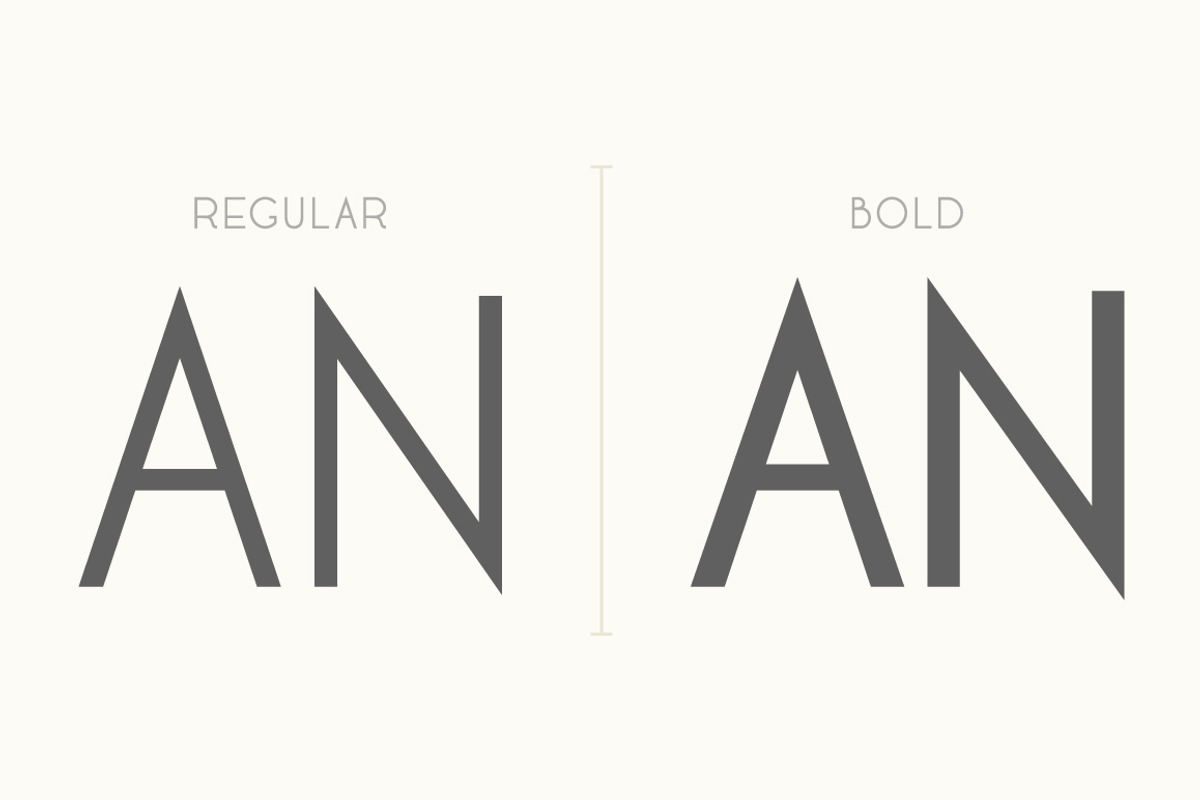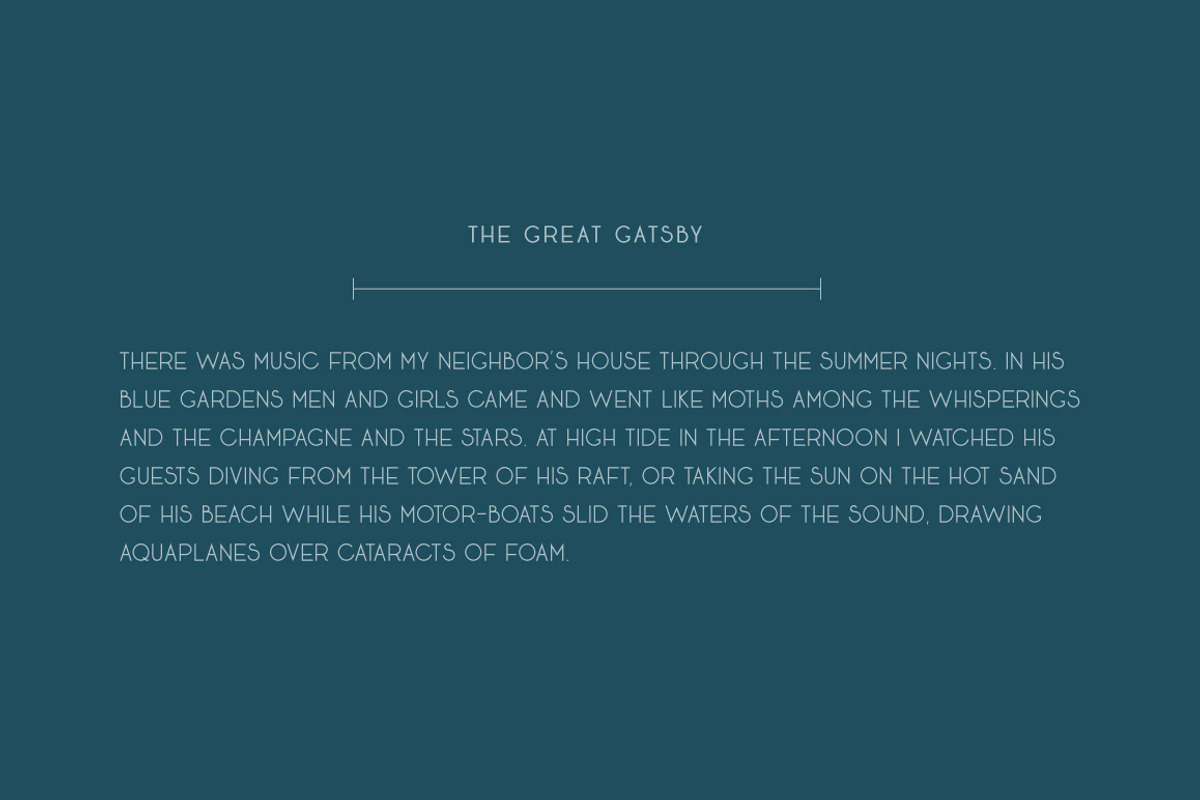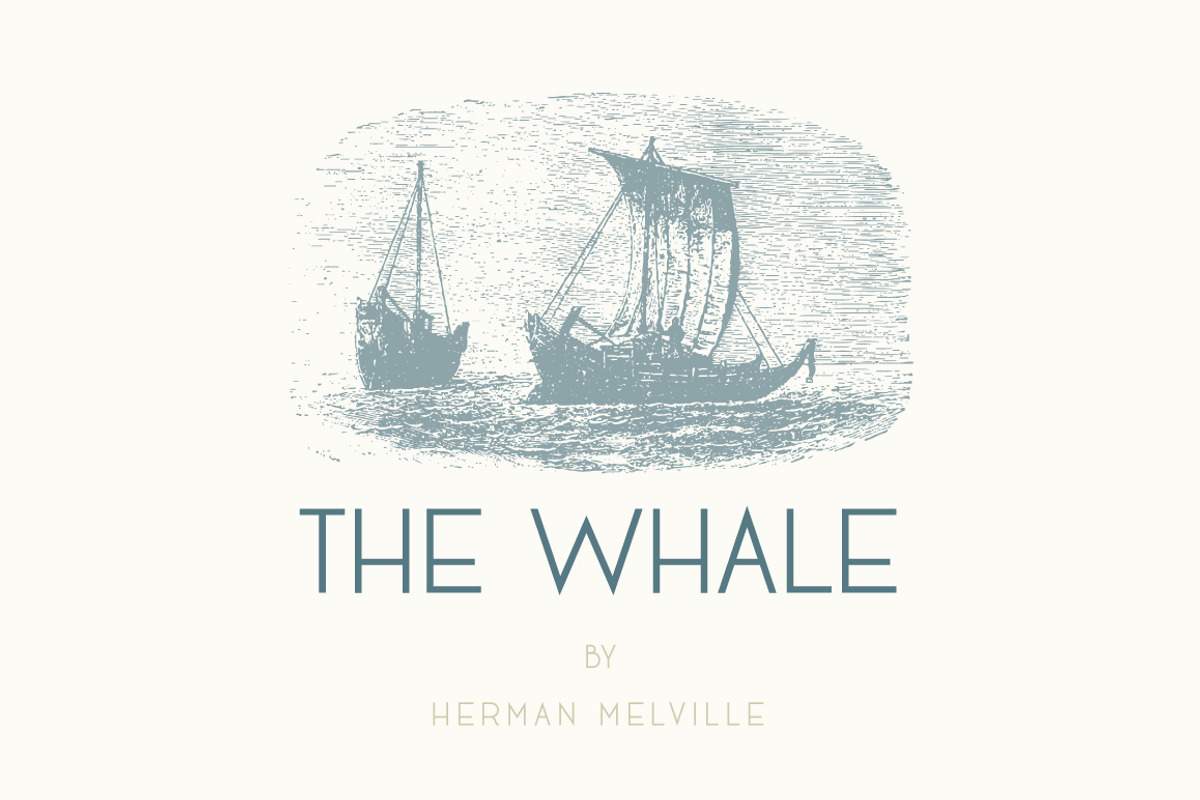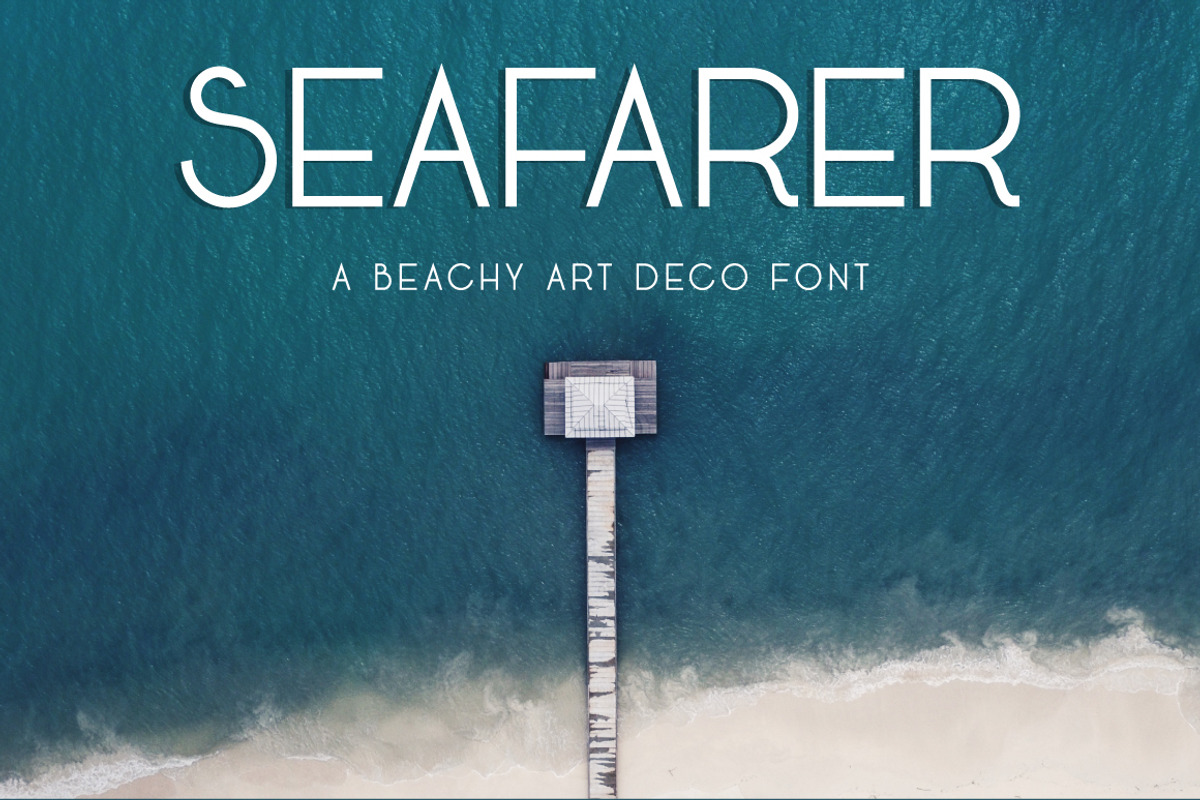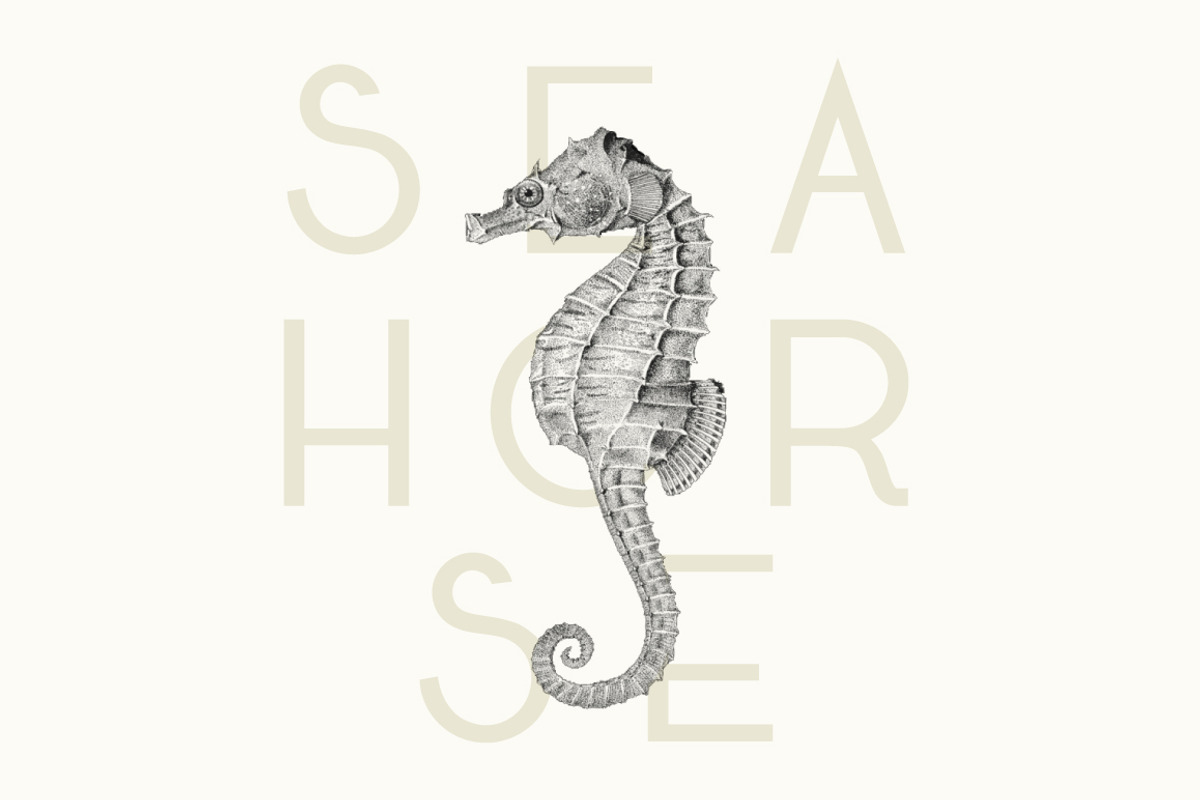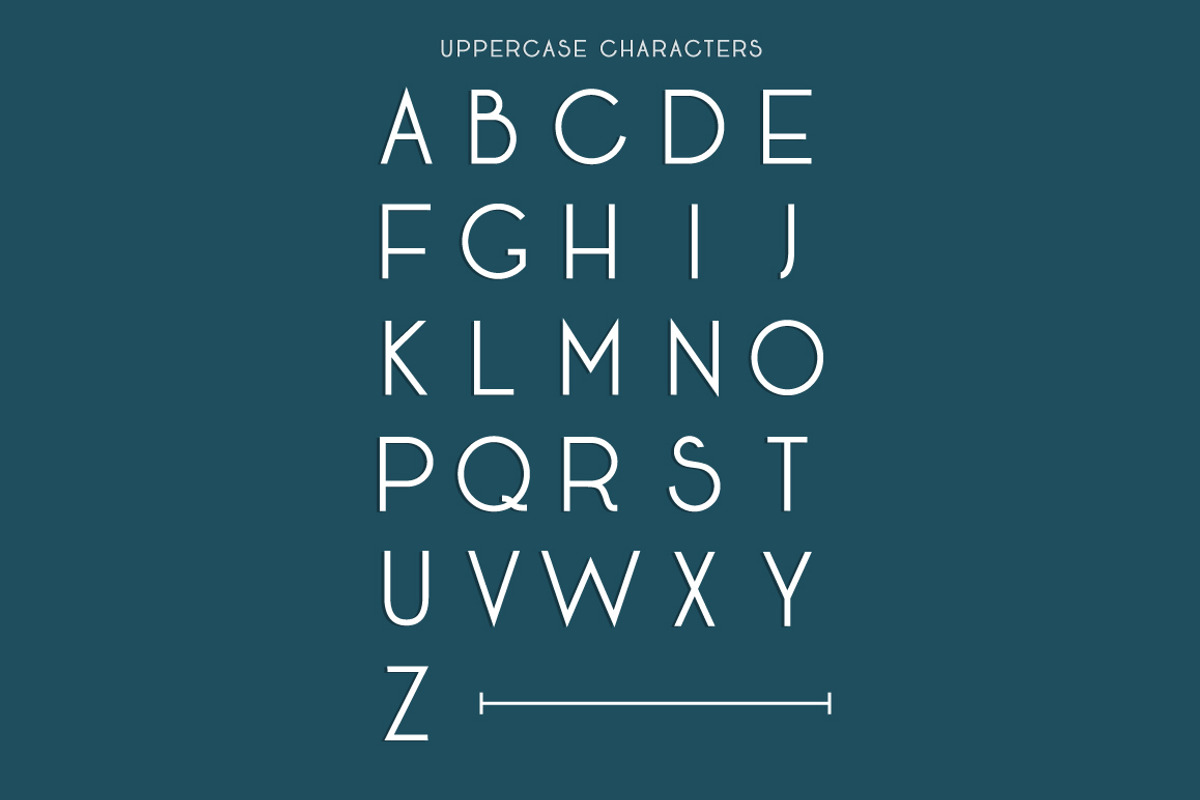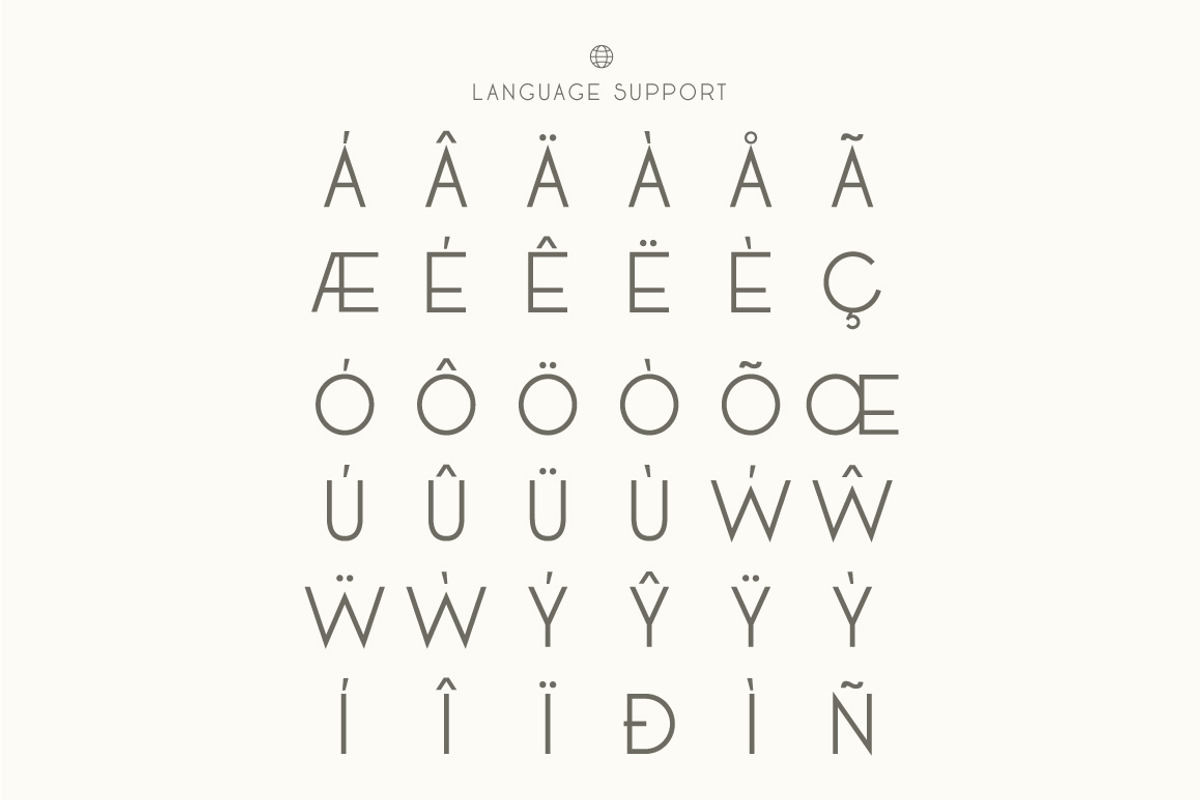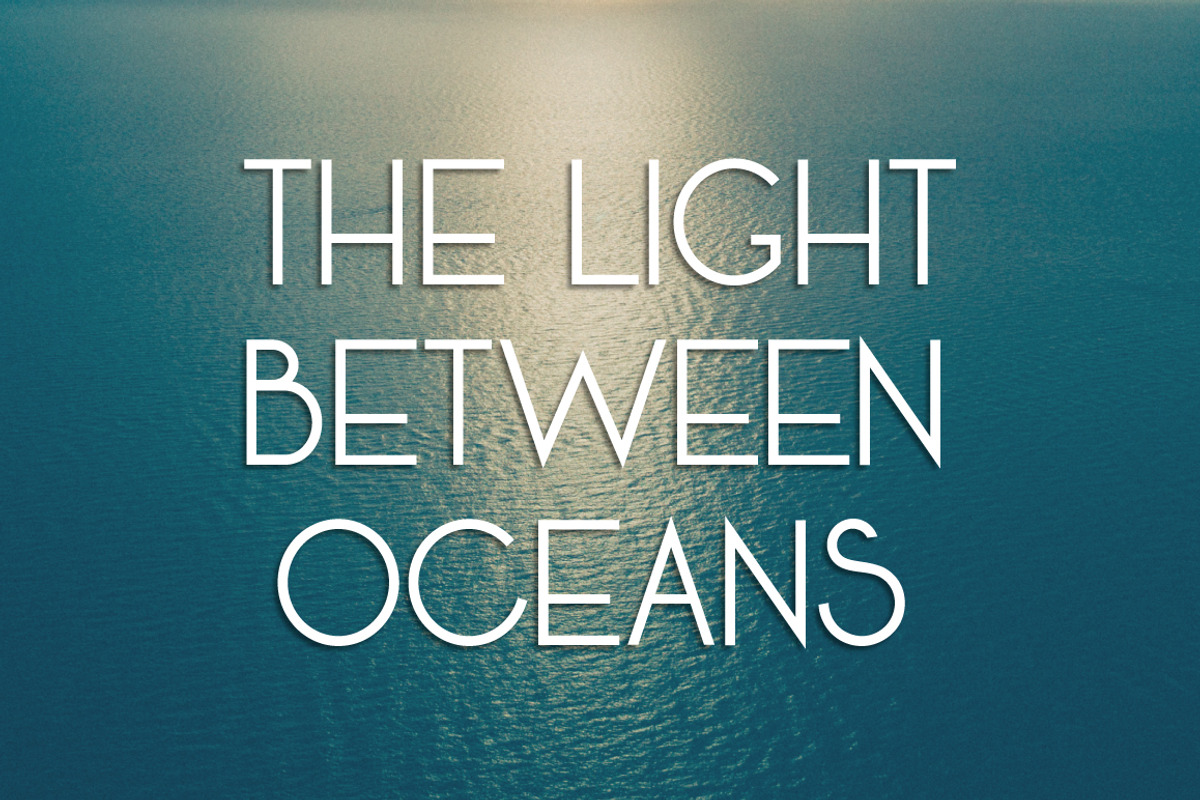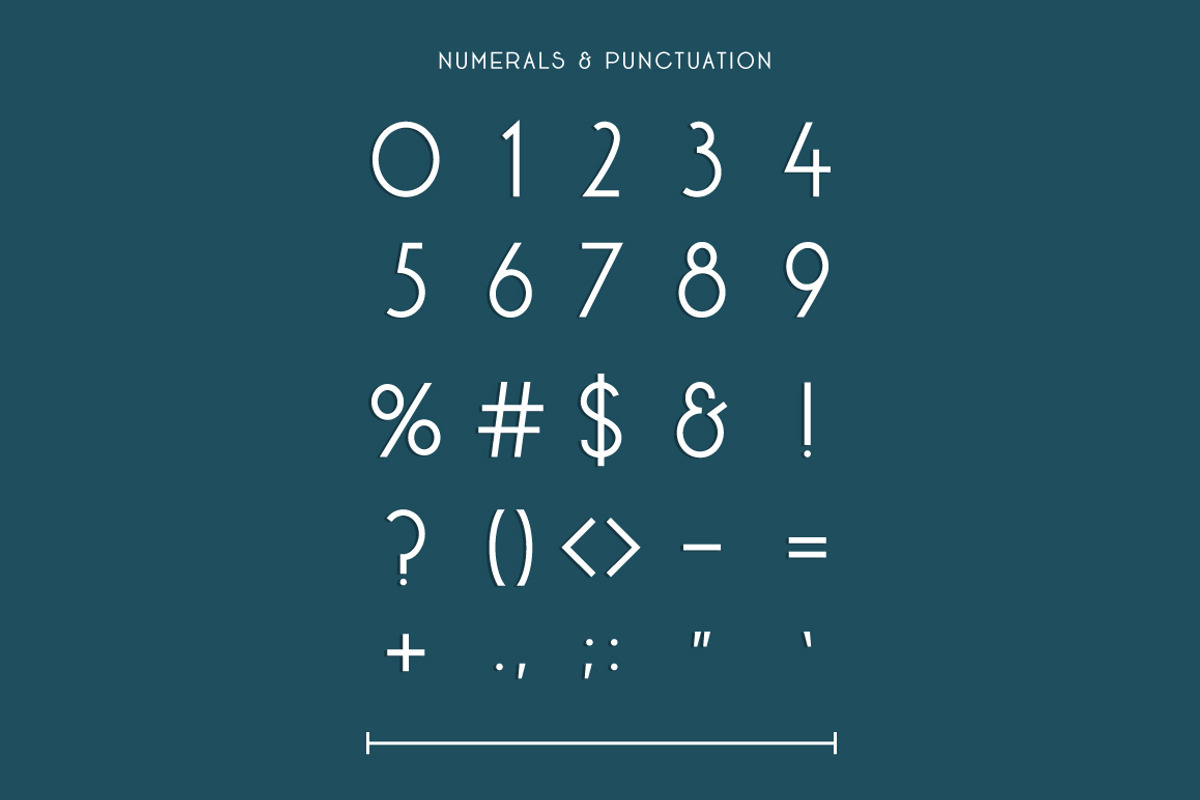
Seafarer | A Beachy Art Deco Font
**Seafarer, A Beachy Art Deco Font **
Get ready for summertime with Seafarer, a beachy Art Deco font available in two weights. Influenced by the Art Deco style of the 1920s, Seafarer adds a vintage touch to your designs and is incredibly versatile. It's perfect for beach graphics, summer graphics, wedding invitations, social media graphics, and more. Seafarer makes a great logo font, too, if you are aiming for that '20s feel. Try out Seafarer today if you are looking for a modern art deco sans serif with a vintage flair for any of your graphics projects.
Uppercase Characters
International Characters